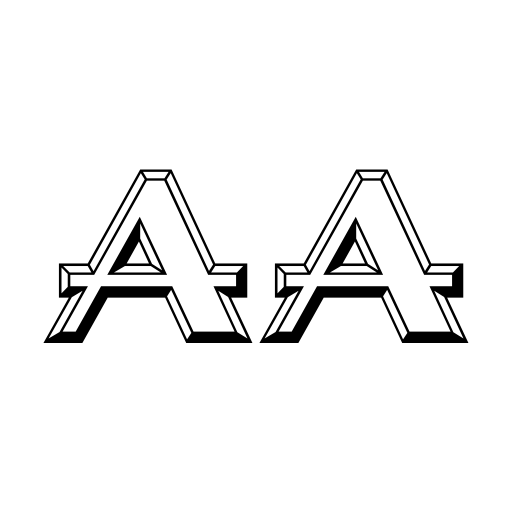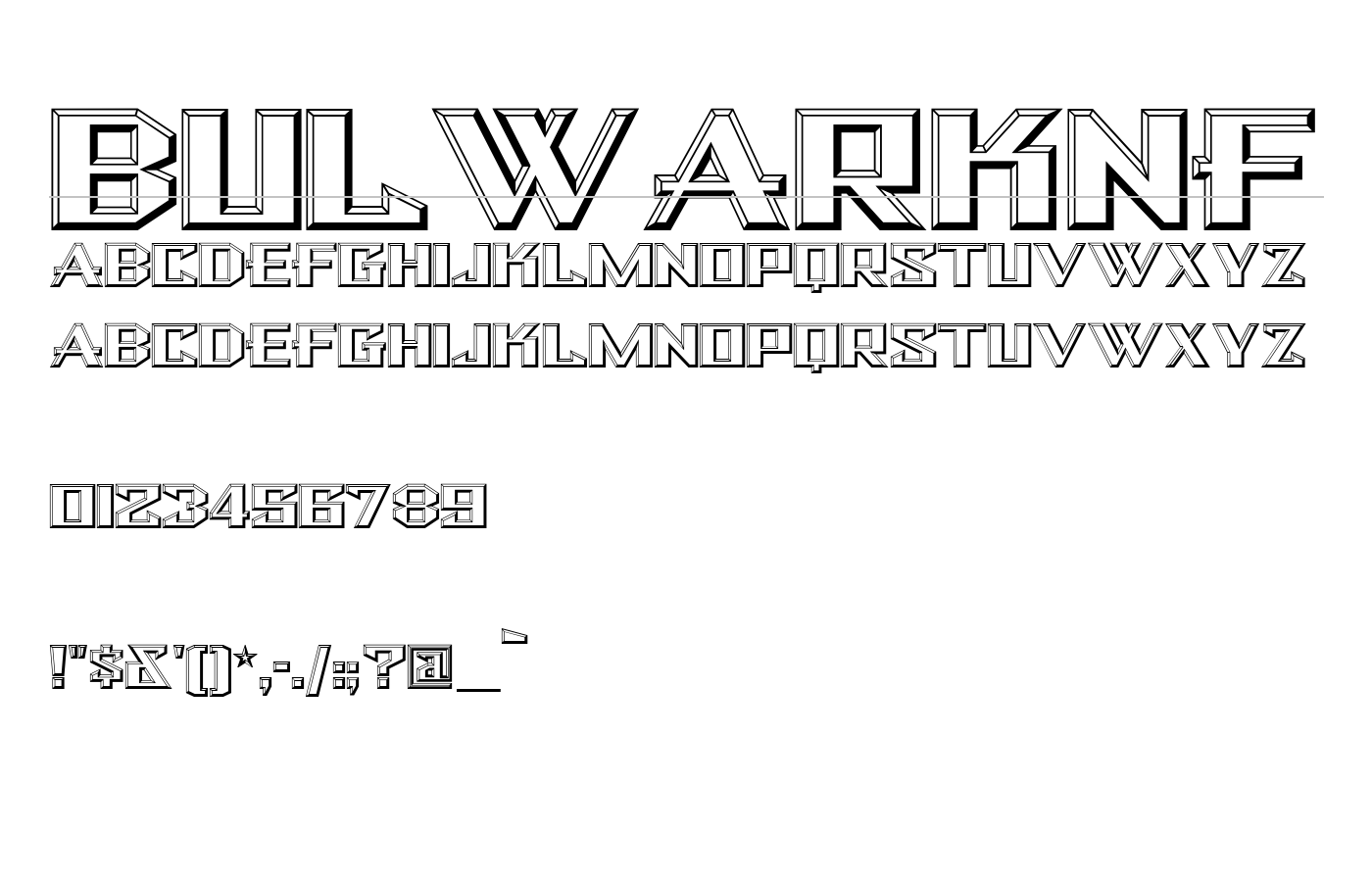
BulwarkNF is a bold, geometric sans serif font with a striking three-dimensional outline effect that gives it a strong, architectural feel. Its uppercase-only letterforms have a blocky, condensed structure with sharp angles and clean lines, making it ideal for impactful headlines, logos, and designs that require a modern yet industrial look. This font works well in branding and display contexts where a sense of strength and precision is desired.
BulwarkNF Font
About BulwarkNF Font
| Font family | BulwarkNF Font |
| Designer | Nick Curtis |